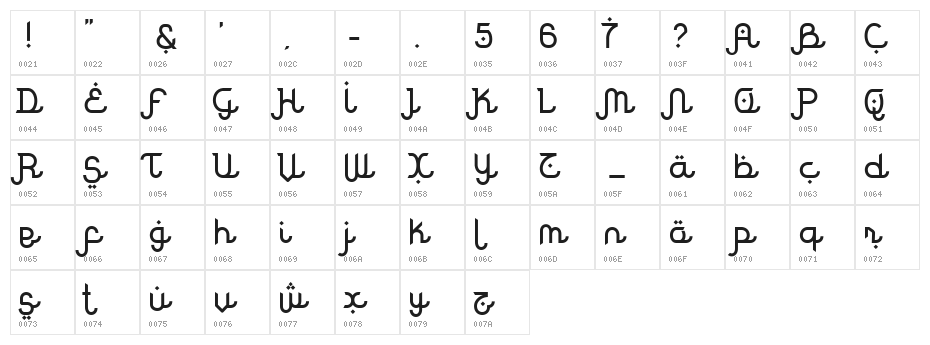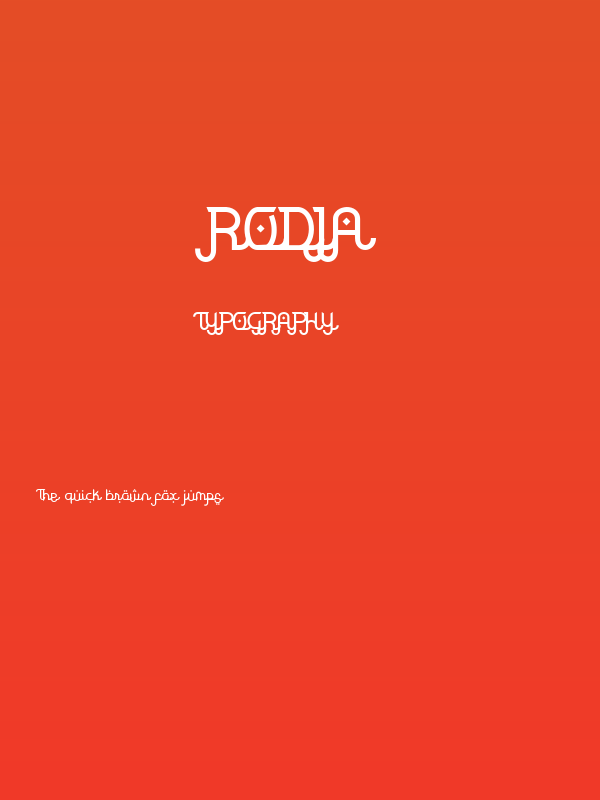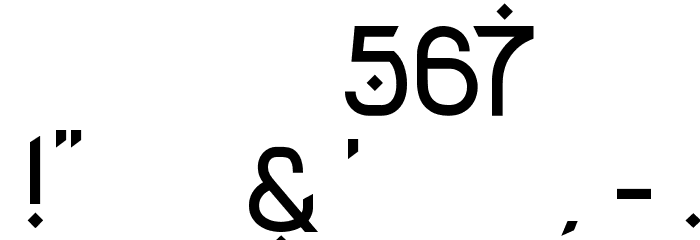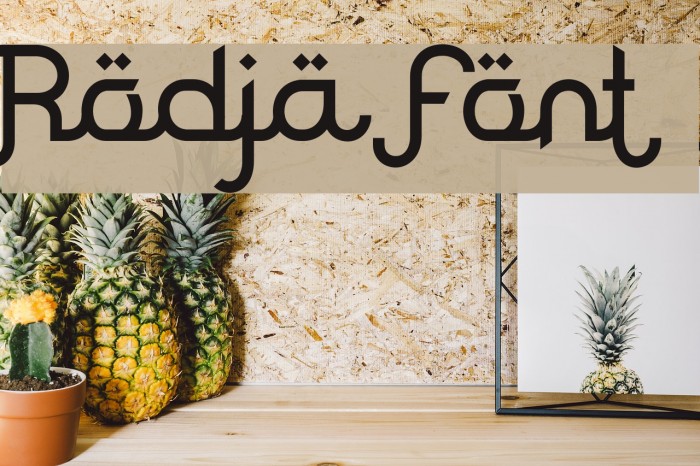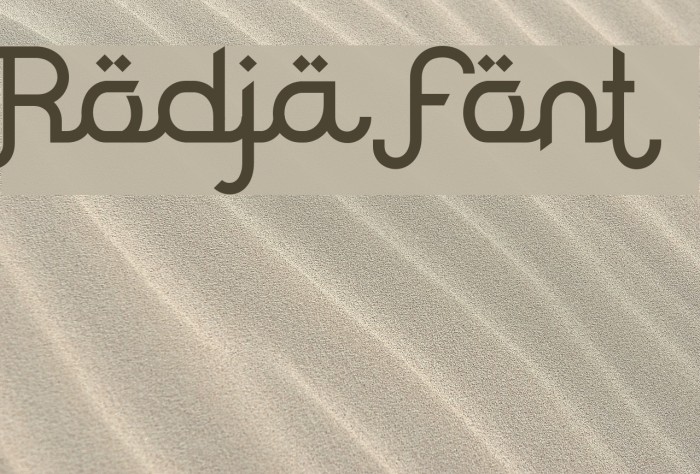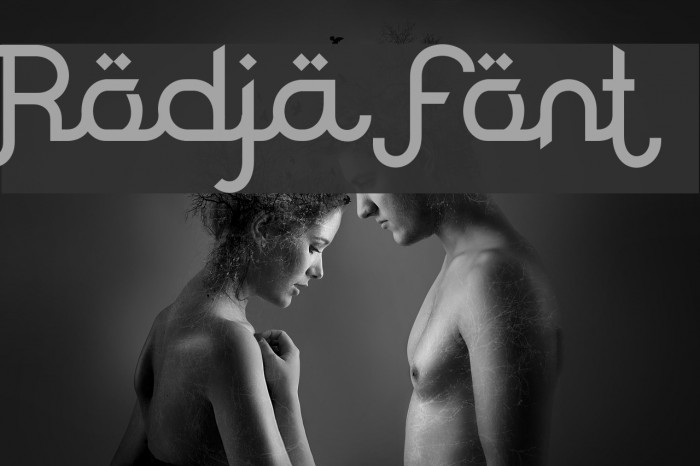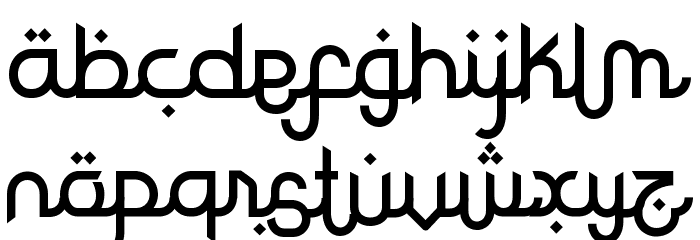
Rodja Font
Rodja Description
This font features a unique and decorative style with a modern twist. The characters are interconnected with a continuous line, creating a flowing and cohesive look. The uppercase letters maintain a consistent height, while the lowercase letters have a playful and artistic design. The numbers are bold and clear, making them easily readable. Special characters are creatively integrated, adding to the font's overall aesthetic. The font's design is both artistic and functional, making it suitable for a variety of creative projects.
| Use Case | Logos, Posters, Artistic projects |
| Proposed Projects | Ideal for branding, logos, posters, and artistic projects that require a unique and modern touch. |